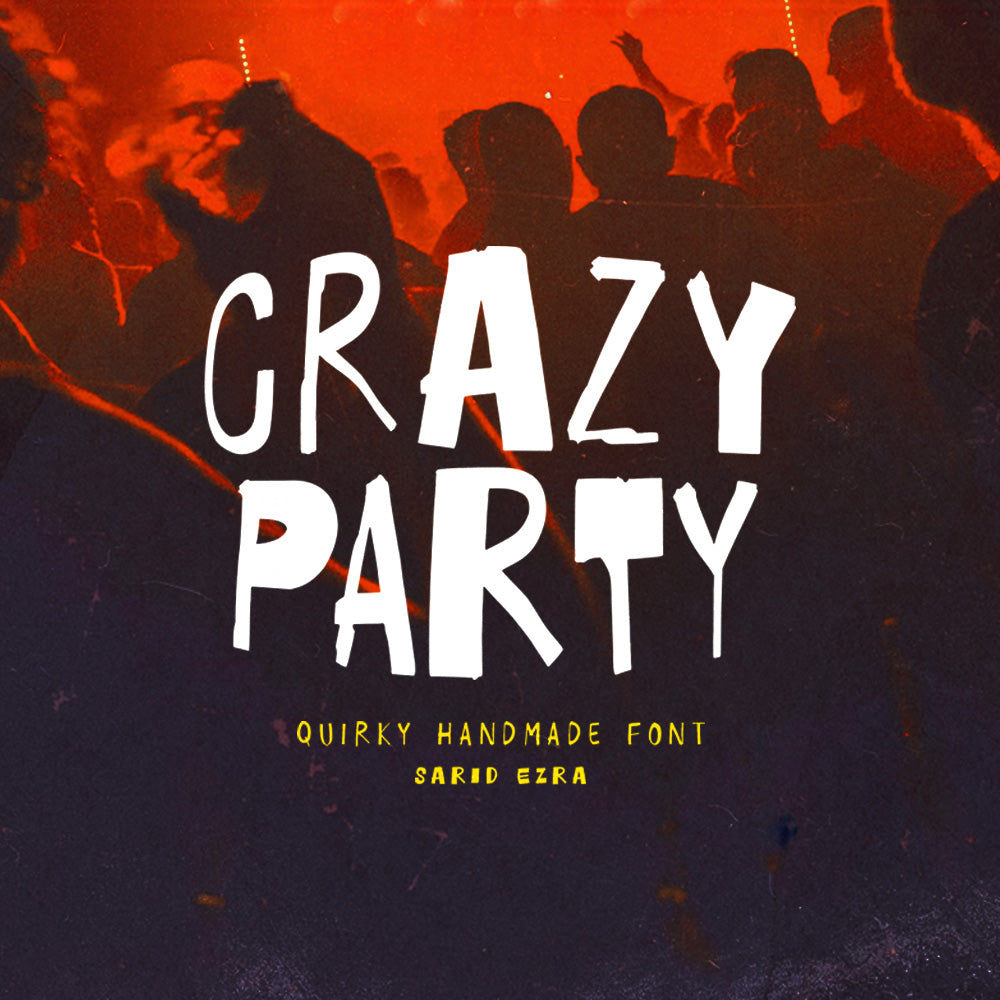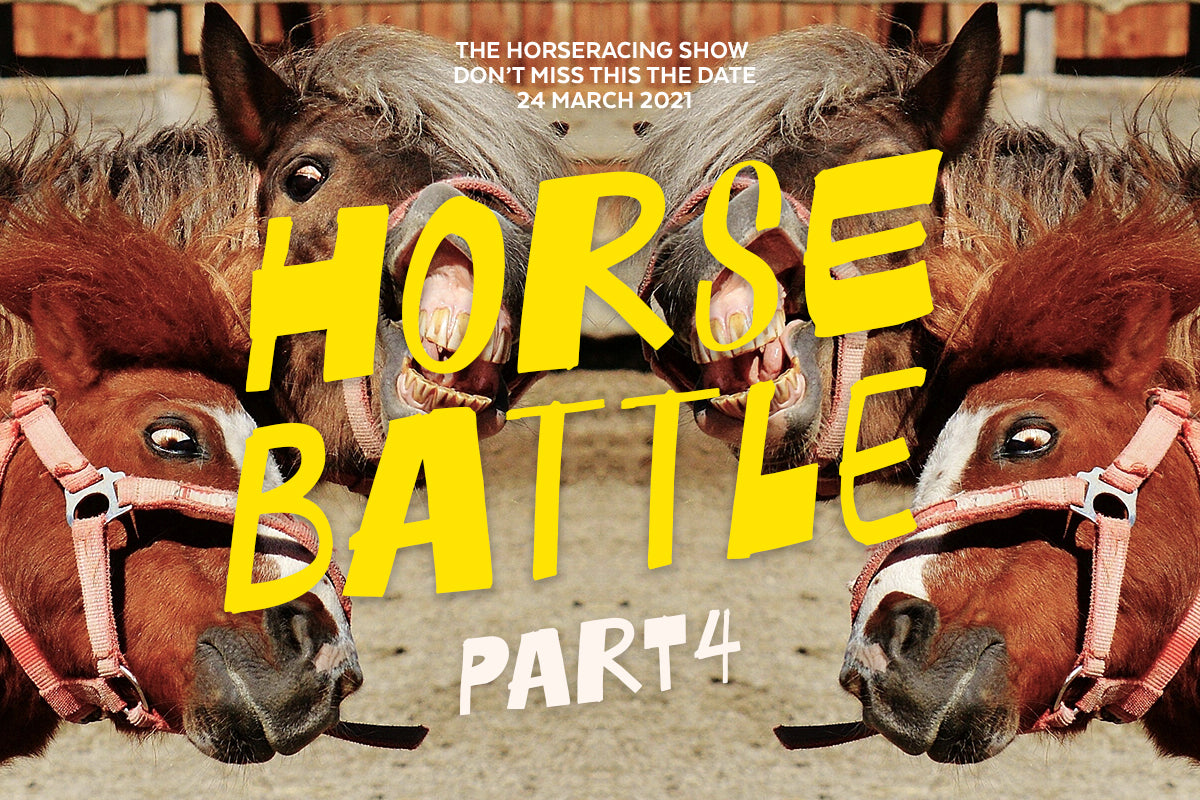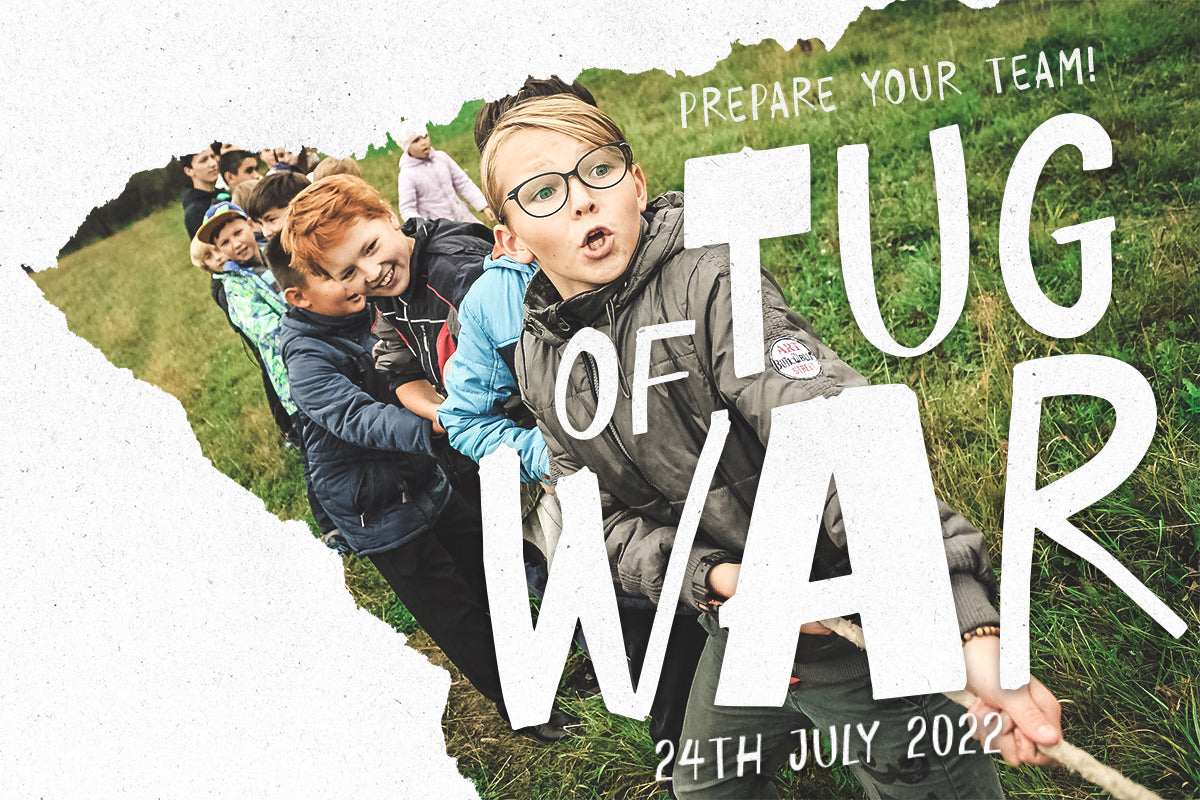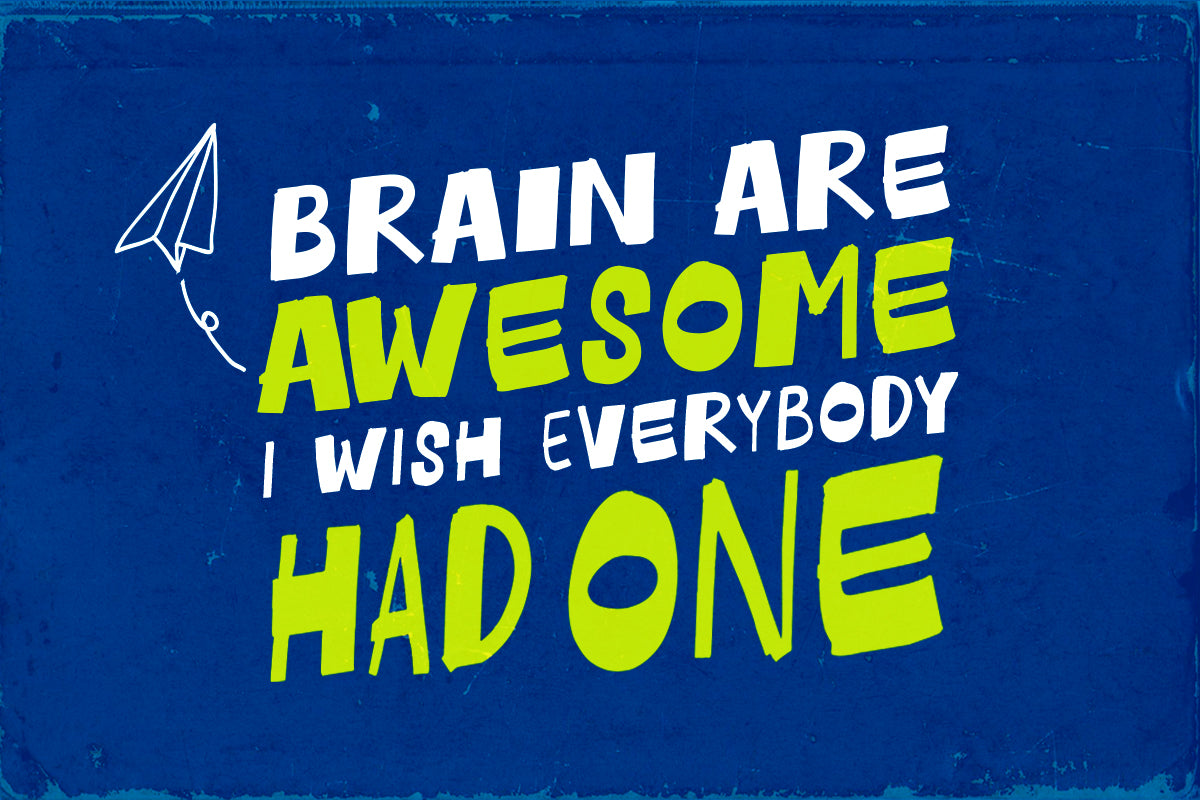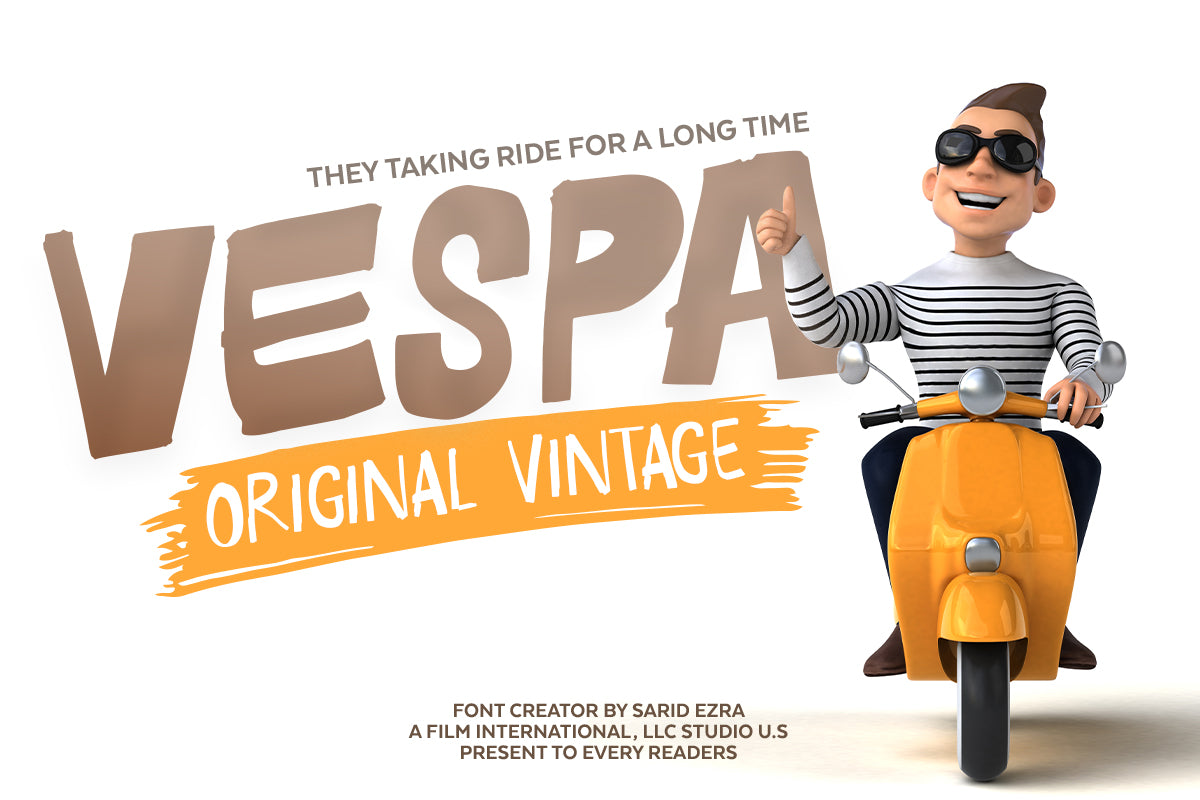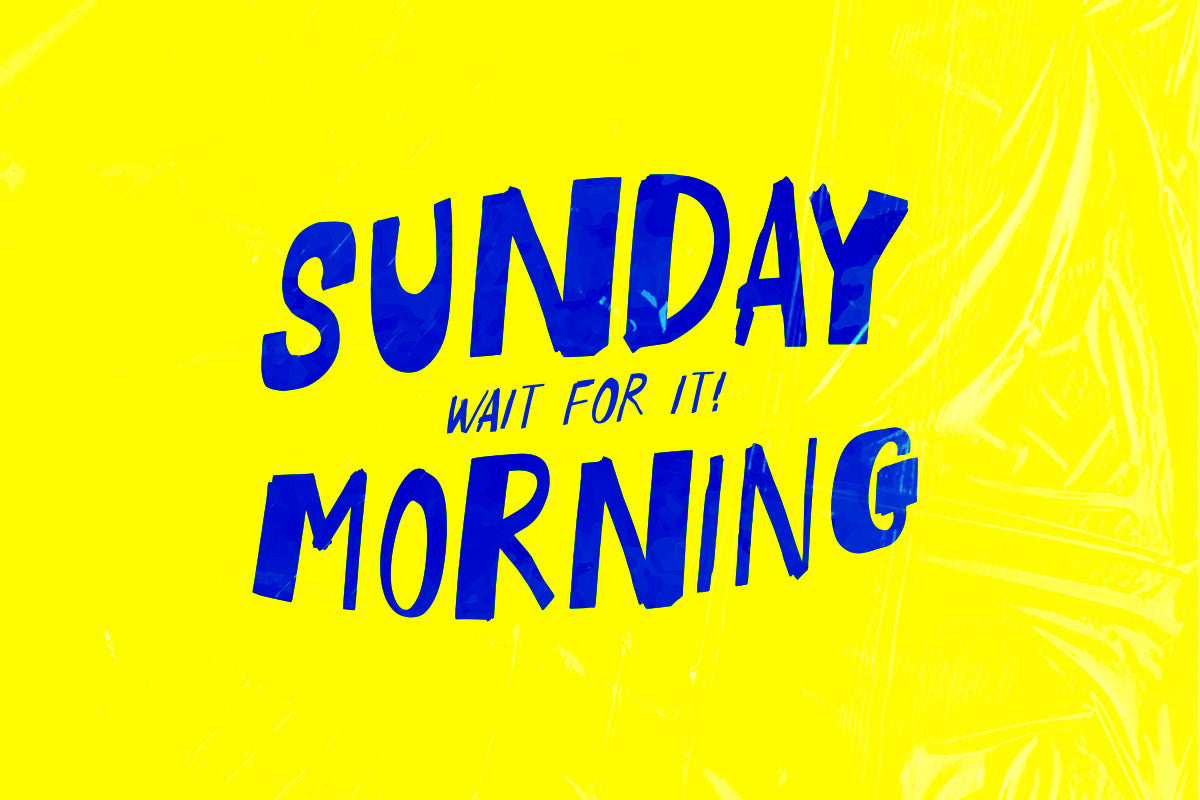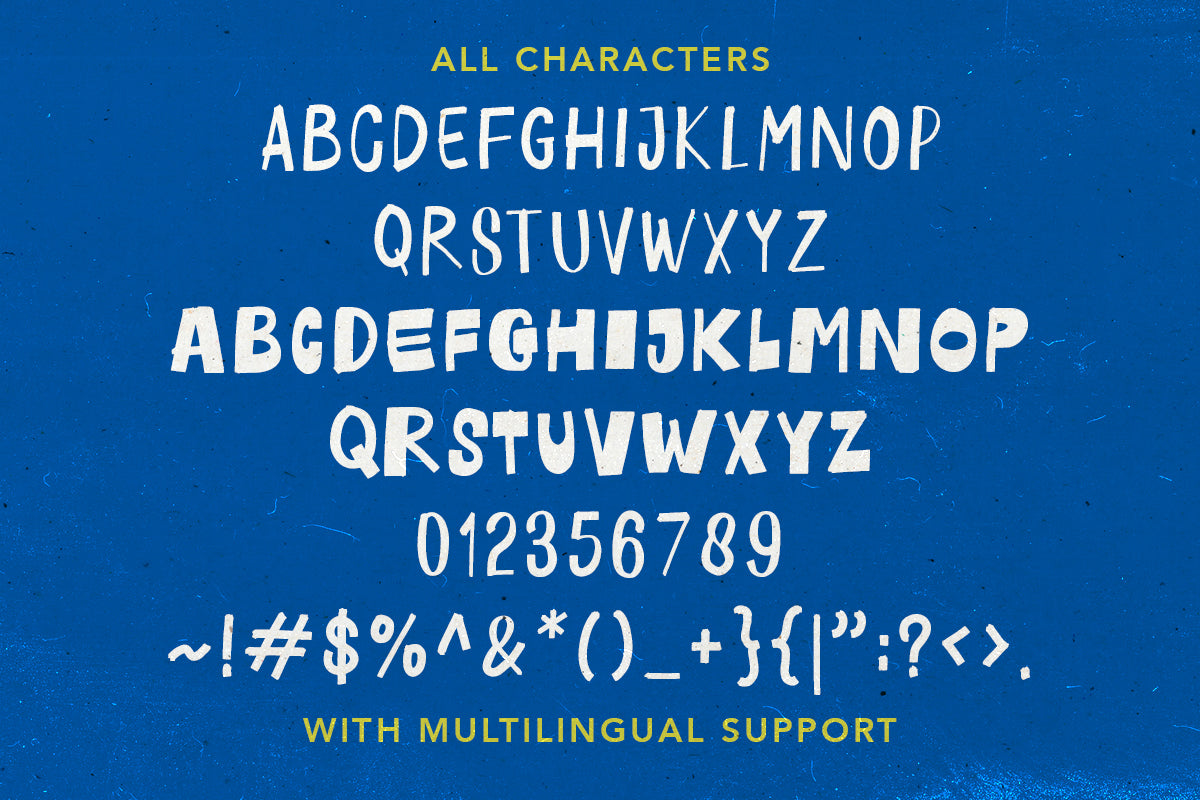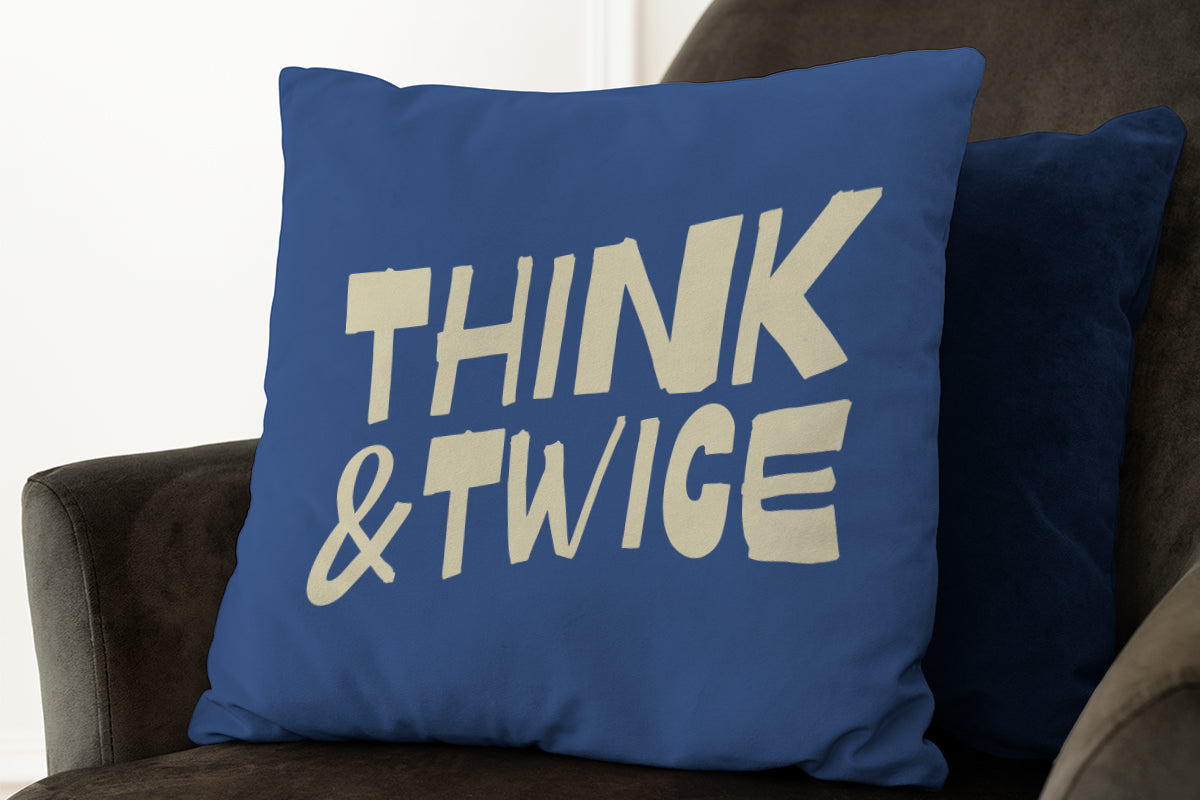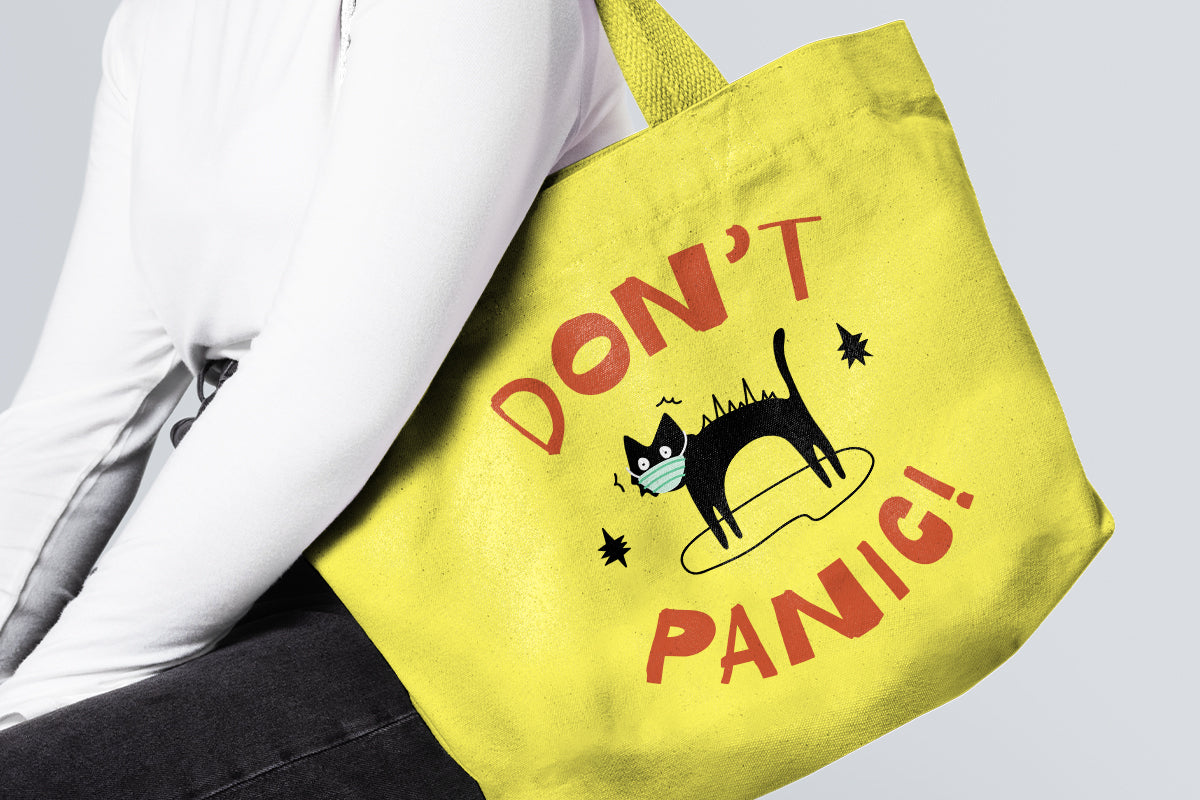
Crazy Party - Quirky Handmade Font
Crazy Party is a quirky handmade font that will make all your project more unique and handy. This font also including a unique lowercase and uppercase with very different weight. Combining the uppercase and lowercase in one word will make your project even more stunning. You can use this font for quotes, your cover book or playing with words in your instagram post. This font also support multilingual!
Crazy Party is a quirky handmade font featuring unique uppercase and lowercase letters with varying weights, designed to create distinctive text combinations. It supports multilingual characters and is suitable for a variety of design projects.